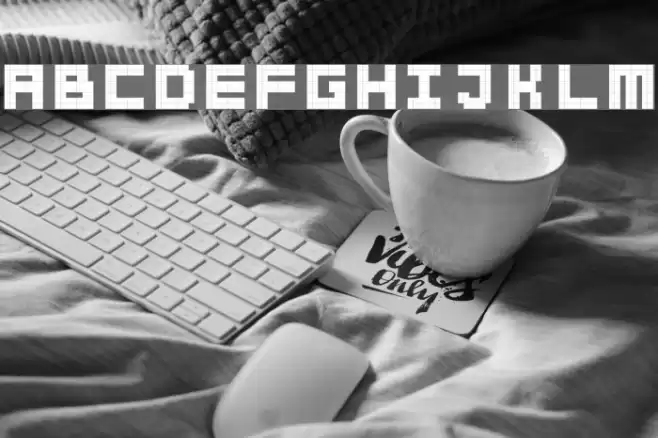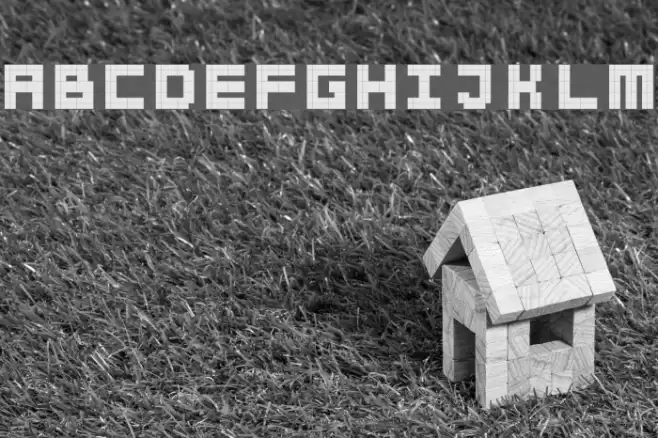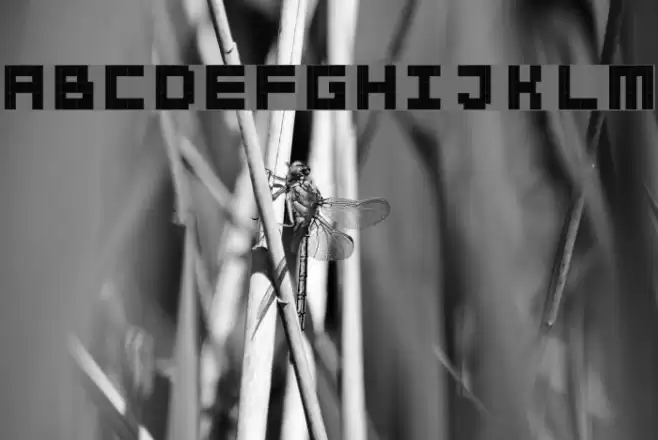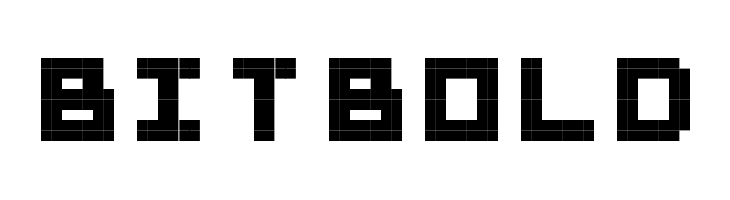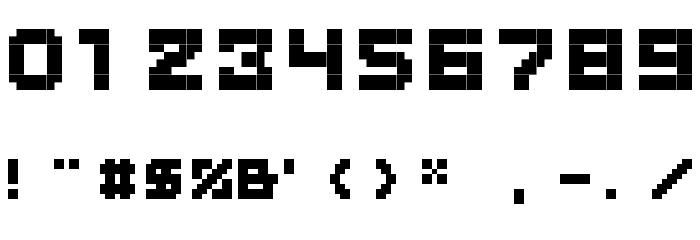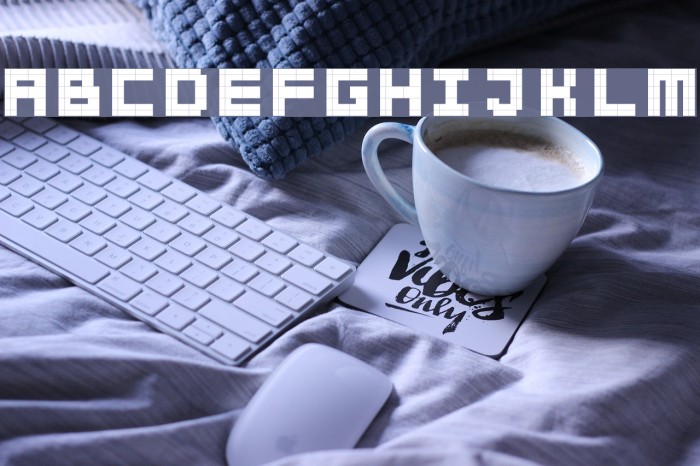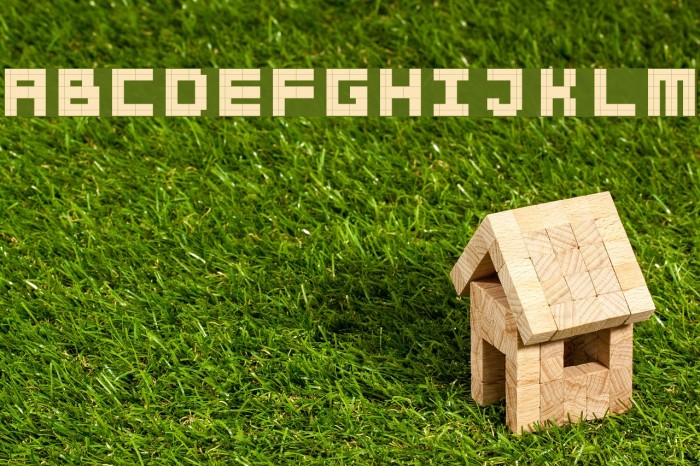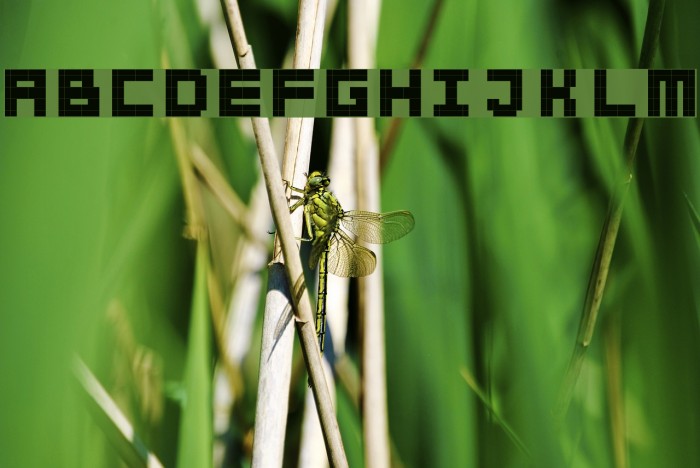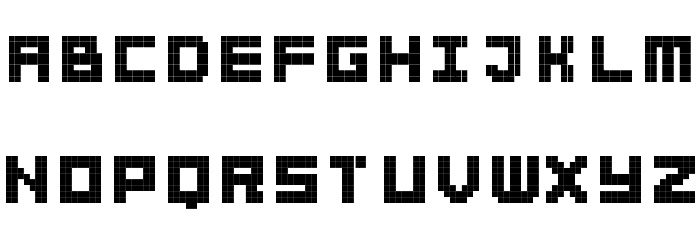
BitBold Font
BitBold Description
This font features a bold, pixelated design reminiscent of early digital displays and retro video games. Each character is constructed from a grid of squares, giving it a distinctly blocky and geometric appearance. The uppercase and lowercase letters maintain a consistent height, contributing to a uniform look across the text. The numbers and special characters follow the same pixelated style, ensuring a cohesive visual theme. This font's unique aesthetic makes it ideal for projects that aim to evoke nostalgia or a digital, tech-inspired feel.
A bold, pixelated font with a retro digital aesthetic from Pixel fonts.
- Proposed Projects: Ideal for retro video game designs, digital art projects, tech-themed posters, and nostalgic branding.
- Overall Style: Retro, Digital